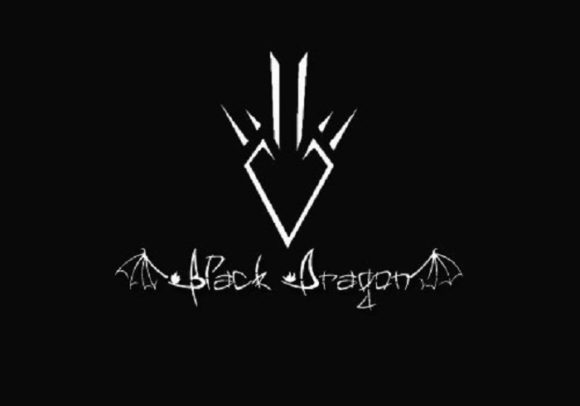
Unleash the Power of Black Dragon Font: Inspired by Yuyu Hakusho
Are you a fan of the iconic anime series Yuyu Hakusho? Do you appreciate unique and bold typography for your design projects? Look no further than the Black Dragon Font, inspired by the popular Japanese anime. This font has an unmistakable look that can elevate various designing needs, from posters and logos to digital art and crafts.
The Inspiration Behind Black Dragon Font
The Black Dragon Font draws its inspiration from the dark and mystical world of Yuyu Hakusho, a classic anime series known for its blend of action, comedy, and supernatural themes. The show’s memorable characters, particularly the enigmatic and powerful Black Dragon, have captivated audiences worldwide. The font’s creators aimed to capture the essence of this beloved anime, translating its distinctive style into a typographic masterpiece.
Unique Features of Black Dragon Font
So, what sets the Black Dragon Font apart from other typefaces? Here are some of its standout features:
- Bold and Edgy Design: The font boasts a striking, bold design with sharp edges and pointed tips, giving it a fierce and dynamic appearance.
- Unique Letterforms: Each letter has been carefully crafted to reflect the anime’s distinct style, with intricate details and ornate flourishes.
- High Versatility: The Black Dragon Font can be used for a wide range of design applications, from titles and headings to logos and branding materials.
Design Applications for Black Dragon Font
The Black Dragon Font’s versatility makes it an excellent choice for various design projects, including:
- Posters and Flyers: Create eye-catching posters and flyers for anime conventions, comic-cons, or other events with a bold and edgy design.
- Logo Design: Use the Black Dragon Font to craft memorable logos for businesses, products, or services that require a strong, dynamic image.
- Digital Art: Add a touch of anime flair to your digital art pieces, such as illustrations, comics, or graphic novels.
- Crafting and DIY Projects: Incorporate the Black Dragon Font into your crafting and DIY projects, like handmade cards, scrapbooking, or papercrafting.
Tips for Using Black Dragon Font
To get the most out of the Black Dragon Font, consider the following tips:
- Pair with Complementary Fonts: Combine the Black Dragon Font with simpler, sans-serif fonts to create visual interest and balance.
- Experiment with Colors: Try pairing the font with bold, vibrant colors to amplify its impact or more muted tones for a subtle look.
- Pay Attention to Size: Use the font at larger sizes to showcase its intricate details and bold design.
| Font Name | Black Dragon Font |
| Author | kind.kiala |
The Black Dragon Font is a unique and powerful typographic tool inspired by the beloved anime series Yuyu Hakusho. Its bold design, intricate details, and high versatility make it an excellent choice for designers and crafters looking to add an edgy touch to their projects. Whether you’re creating posters, logos, digital art, or crafting materials, this font is sure to unleash your creativity and make your designs stand out.